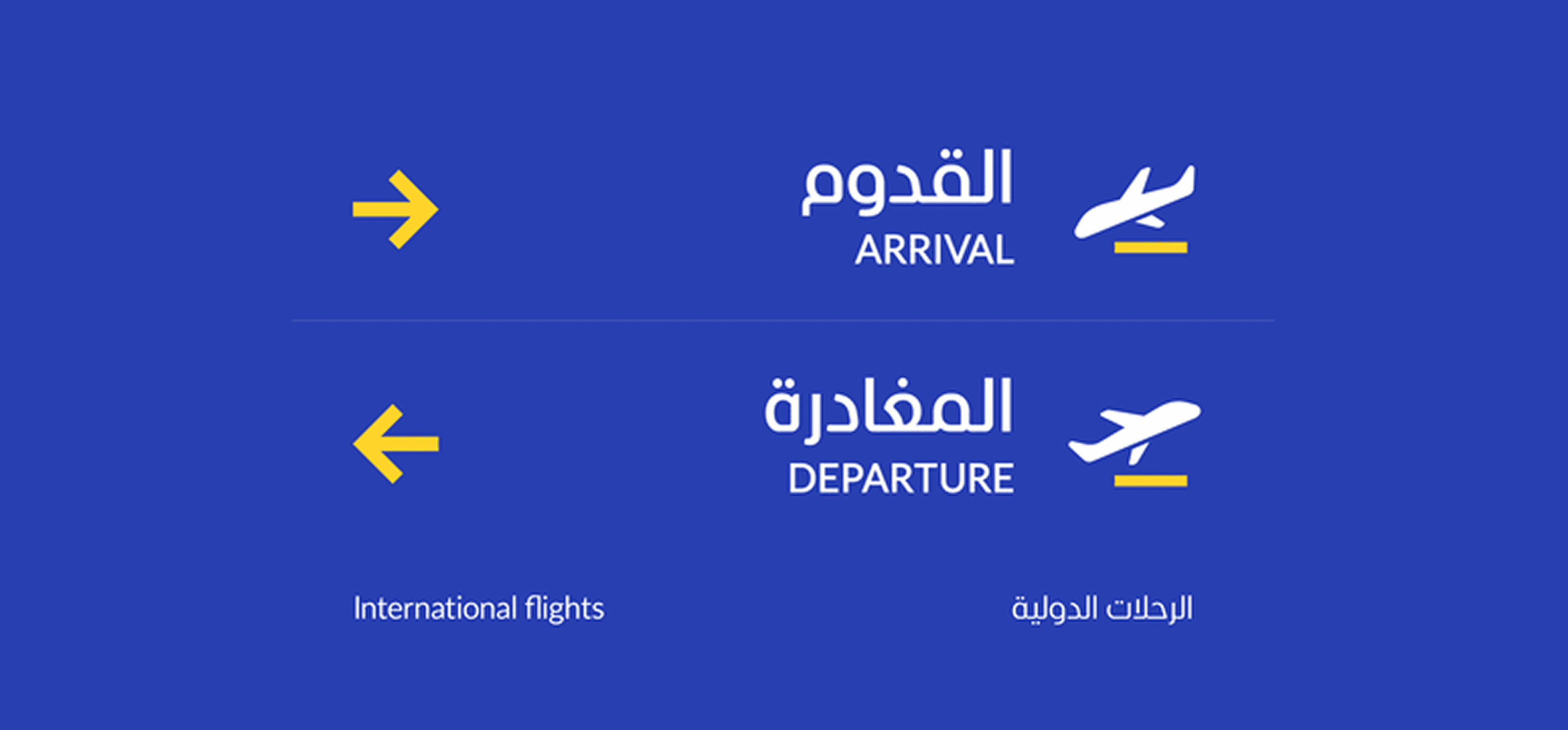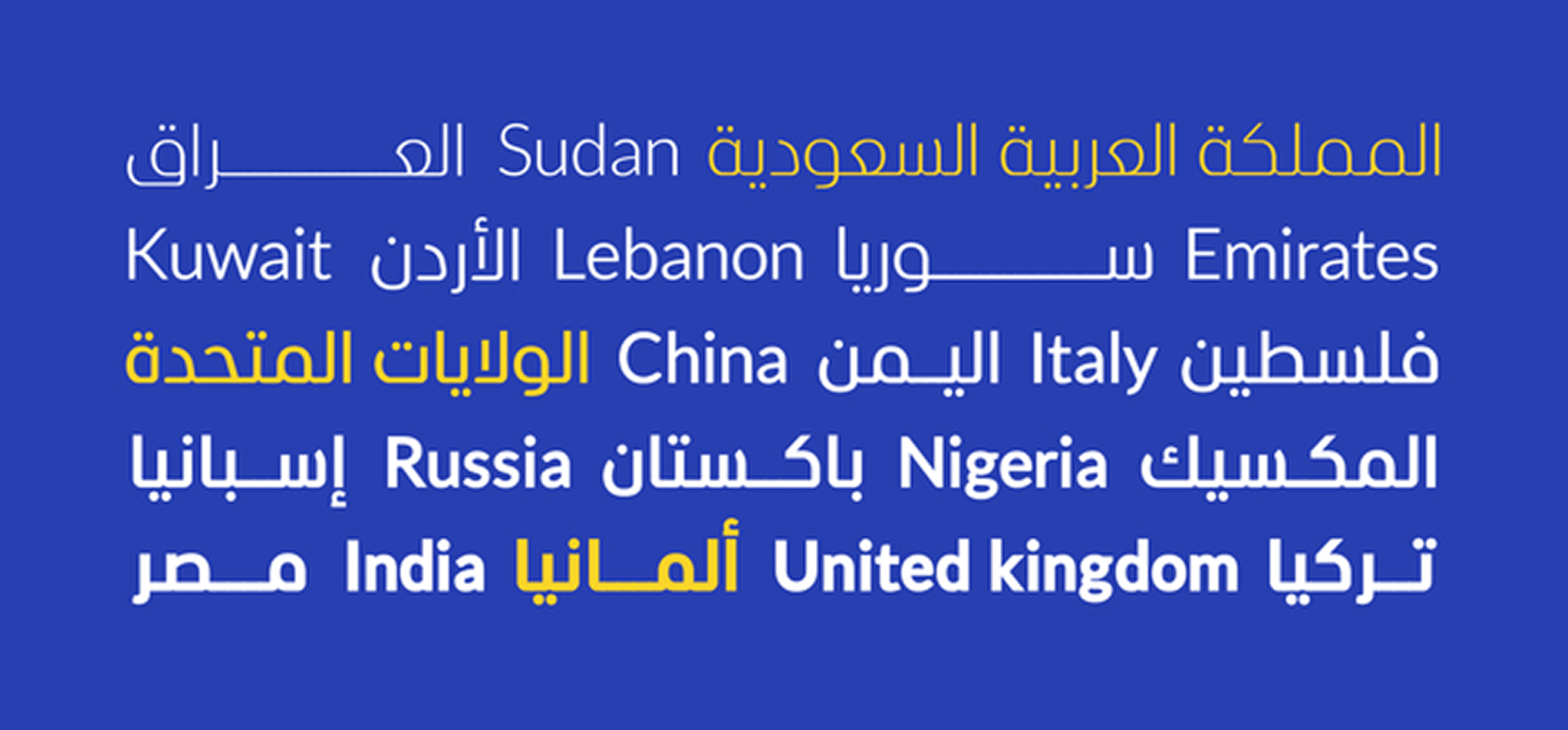
Alilato is a modern Arabic typeface family in 9 weights
خط عربي كوفي حديث يتكون من 9 أوزان
Alilato is the perfect choice to use in both print and web applications, and alongside its matching Latin typefaces
استخدام مناسب للطباعة والمنصات الرقمية ومتوافق بشكل كامل مع الحروف اللاتينية